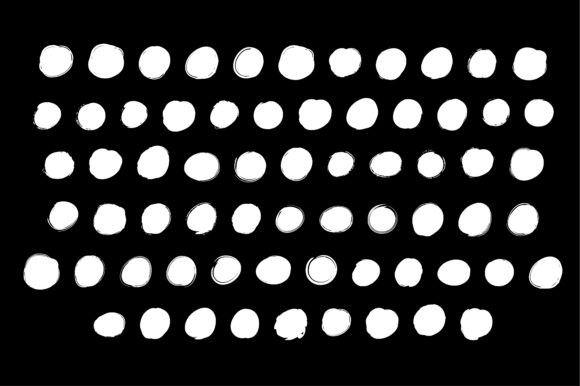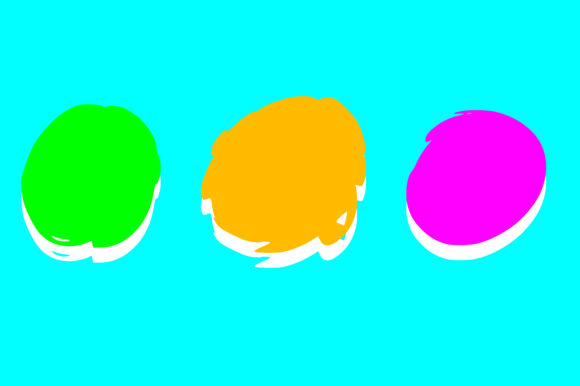
Unlocking the Power of Expressive Typography
Have you ever stared at a blank canvas, struggling to find the perfect font to bring your design to life? We’ve all been there. It’s that moment when you need to add a splash of personality to your project, but nothing seems quite right. That’s where BM Graphics – Blobs Font comes in – a game-changing set of 75 unique blobs glyphs in a stunning range of styles and designs.
With BM Graphics – Blobs Font, you’ll never be short on creative options. Whether you’re a seasoned designer or just starting out, this versatile font is perfect for adding a touch of whimsy to your designs. From icons and crafts to editorial and advertising, the possibilities are endless. By incorporating BM Graphics – Blobs Font into your workflow, you’ll be able to tap into a whole new world of expressive typography and take your designs to the next level.
BM Graphics – Blobs Font Key Features
- Unique Characteristics: The Blobs Font features a unique, hand-drawn design with irregular shapes and playful textures, adding a touch of whimsy to any project.
BM Graphics – Blobs Font Review
I recently had the chance to work with the Blobs Font from BM Graphics, and I must say it’s a unique addition to any design project. ✨ The font’s organic, hand-drawn feel immediately grabs attention and adds a touch of personality to any text. The multiple weights and styles available make it versatile and easy to use in various contexts.
One of the standout features of the Blobs Font is its high level of customization. ✨ BM Graphics offers a range of parameters to adjust, including letter spacing, word spacing, and even individual letter scaling. This level of control allows designers to fine-tune the font to perfectly fit their project’s needs.
However, there are a few limitations to consider. ⚠️ The font’s file size is relatively large, which may cause issues with slower internet connections or older systems. Additionally, some users may find the font’s unconventional style challenging to work with, particularly when it comes to readability at smaller font sizes.
Pros:
- Unique, hand-drawn feel
- High level of customization
- Multiple weights and styles available
Cons:
- Larger file size
- May be challenging to read at smaller font sizes
Overall, I’m impressed with the Blobs Font and its potential to add a creative touch to designs. While it may not be suitable for every project, it’s certainly a valuable addition to any designer’s toolkit.
BM Graphics – Blobs Font is perfect for creating playful and whimsical designs.
Use it for:
– Children’s book covers
– Party invitations
– Social media graphics
For the best results, pair the font with bold, bright colors and playful graphics.